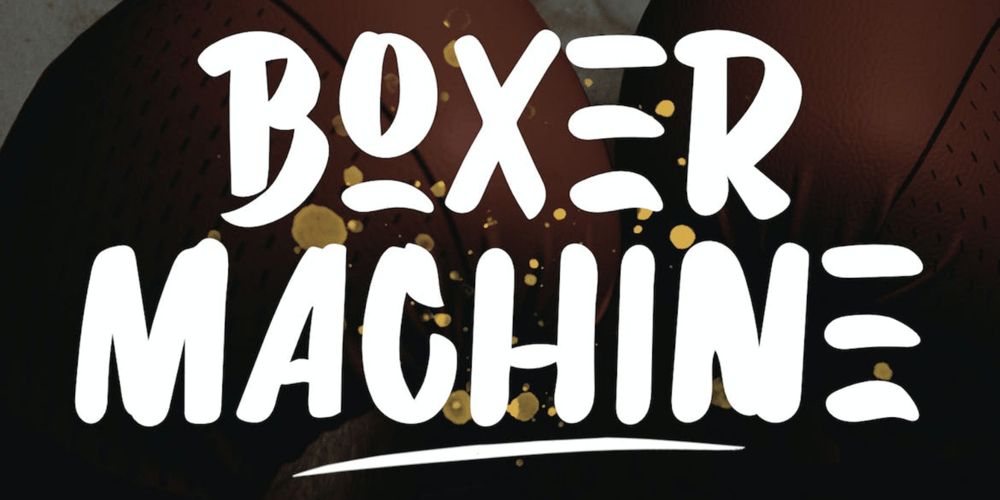
Boxer Machine Font Family was designed by Irpan Maulana and published by Create Big Supply. Boxer Machine contains 1 styles and family package options. Introducing Boxer Machine, a powerful brush font that captures the essence of handcrafted strokes. With its strong and natural style, this font brings an authentic and dynamic feel to your designs. It is the perfect choice for logos and various formal applications such as labels, magazines, books, greeting cards, packaging, novels, and advertising materials.Boxer Machine exudes confidence and impact with its combination of uppercase and lowercase letters. The brush-inspired strokes add a touch of ruggedness and artistic flair to your typography, making it stand out from the crowd. Whether you’re creating a bold logo or designing eye-catching headlines, this font is sure to leave a lasting impression.In addition to its aesthetic appeal, Boxer Machine offers functionality. It includes numbers and punctuation marks, ensuring versatility across different design projects. With multilingual support, you can effectively communicate your message to a global audience.The font also features PUA (Private Use Area) Encoding, granting you access to special characters and glyphs. Take your creativity to the next level and personalize your designs with unique elements.